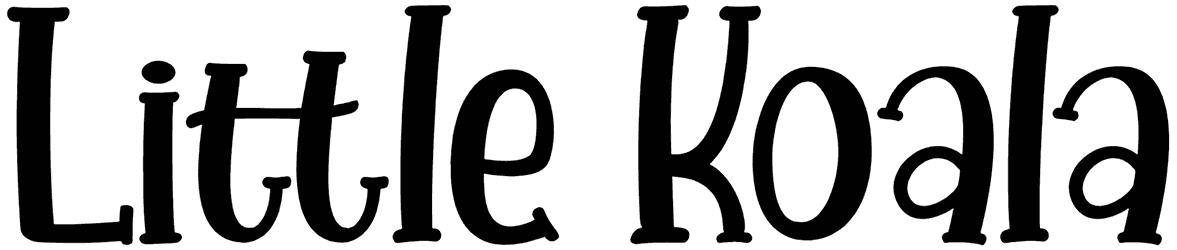
If you are in the mood for establishing a sense of softness, freshness, delicacy, and childhood in your graphic content, a lovely cartoon font such as Cutie Delina would be really helpful for achieving your goals. Since its characters are designed with accurate and well-rounded curves, you can utilize this quirky font in your illustrations, book covers, flyers, educational brochures, or gift cards.